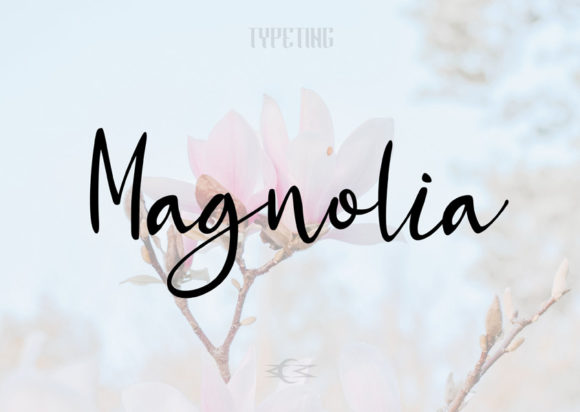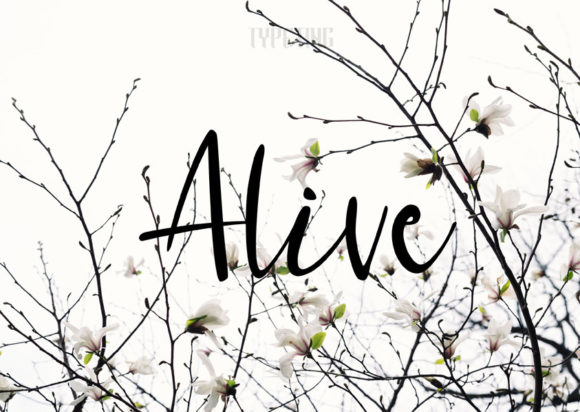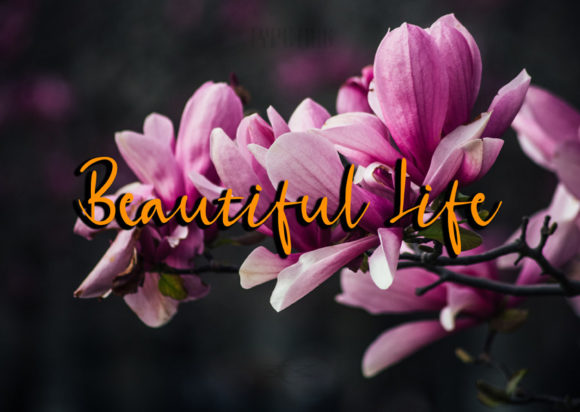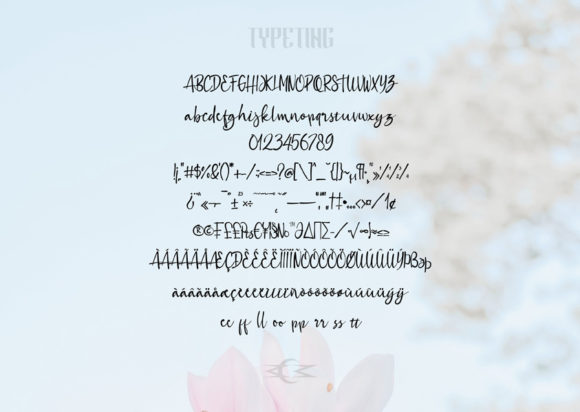
Magnolia is a beautiful and gorgeous script font, featuring a modern feel. It is the best choice for creating eye catching logos, branding and quotes. Every letter has a unique and beautiful touch, which will make your design come alive!